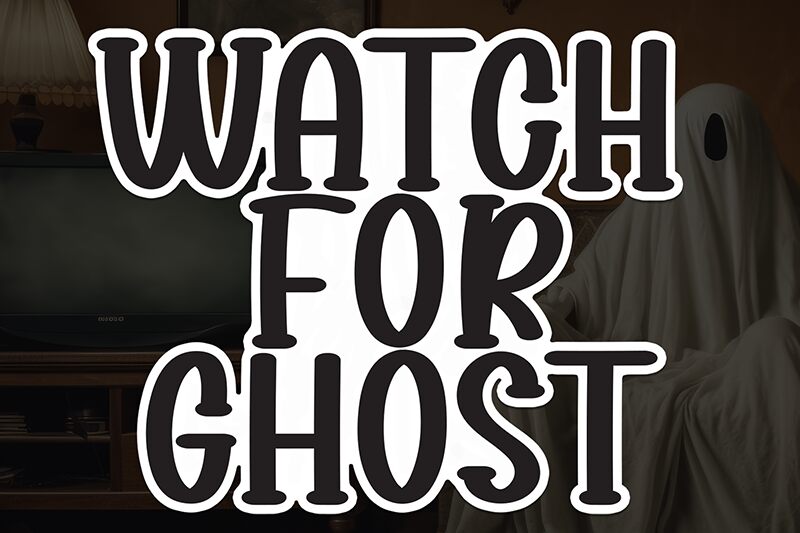
Watch For Ghosts
Watch For Ghosts font is a condensed handwritten creation by Scratchones. This free handwritten font with a clean and natural brush look is friendly with an artistic flair. The condensed letters and wide letter spacing make the font suitable as the main character for some creative projects. Add more fun to your readings or posters, and grab all the attention.
Use this free font in mystery reading books, magazine covers, contemporary art posters, branding designs, social media posts & covers. Watch For Ghosts is also great for website designs, quotes & motivational text designs as well as invitations especially for celebrations like Halloween parties! Use it confidently in titles and headlines both printed or on-screen!